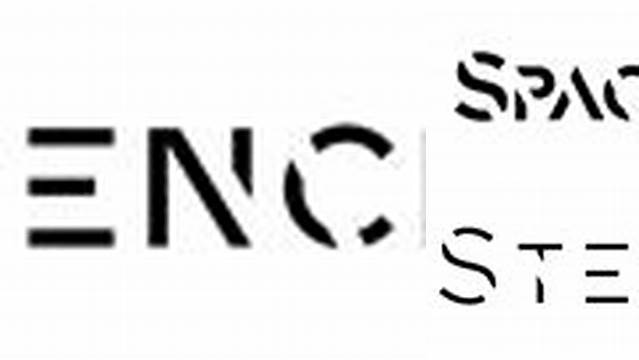
Hey there, design enthusiasts and creative minds! Are you on the hunt for a font that truly stands out, offers a distinctive edge, and won't cost you a dime? Well, buckle up, because we're about to dive deep into the fantastic world of Spaco Stencil SC Normal. This isn't just any free font, guys; it's a versatile, eye-catching typeface that can totally transform your projects, giving them that industrial, bold, or even military-inspired look without the hefty price tag. We're talking about a font that's perfect for everything from impactful headlines to striking logos, and it's all available for you to grab right now. So, let's explore why Spaco Stencil SC Normal should be your next go-to, how to get your hands on it, and all the amazing ways you can put it to work.
Unveiling Spaco Stencil SC Normal: Your Next Go-To Free Font
Spaco Stencil SC Normal is truly a game-changer for many designers, offering a unique blend of readability and rugged charm that’s hard to come by, especially in the realm of free fonts. This particular typeface, as its name suggests, falls into the stencil category, which means each character is broken into segments, giving it that classic, cut-out appearance often associated with crates, military markings, or vintage signage. But what sets Spaco Stencil SC Normal apart is its remarkable balance; it manages to be bold and assertive without sacrificing clarity, making it incredibly effective for titles, headers, and any design element where you want to make a strong visual statement. It’s perfect for projects that demand a sense of strength, authenticity, or a touch of urban grit. Think about album covers, event posters, or even branding for a rugged outdoor company – this font just gets it. The 'SC' in its name often refers to 'Small Caps' or 'Semi Condensed,' which further defines its unique character, providing a consistent height that works wonders for cohesive design.
Another fantastic aspect of Spaco Stencil SC Normal is its incredible versatility, guys. Don't let the "stencil" label fool you into thinking it's a one-trick pony. While it absolutely excels in industrial or military-themed designs, its clean lines and structured form allow it to adapt to a surprising array of styles. You could pair it with a sleek sans-serif for a modern, minimalist look that still has an edge, or combine it with a script font for a fascinating contrast that’s both elegant and bold. The 'normal' weight ensures it’s not too heavy or too light, hitting that sweet spot for most applications. Designers often gravitate towards fonts that offer this kind of adaptability, because it means one great resource can be stretched across numerous different client briefs and personal projects. It’s like having a secret weapon in your design arsenal that you can pull out for almost any challenge, ensuring your work always looks professional and thoughtfully crafted. This ease of integration is a huge plus, making it a valuable asset for both seasoned pros and those just starting their design journey.
Ultimately, choosing Spaco Stencil SC Normal for your next creative endeavor is a smart move if you're looking to infuse your work with character and impact without dipping into your wallet. The fact that it's free is just the icing on the cake, allowing you to allocate your budget to other essential design tools or even just enjoy the savings. This font doesn't compromise on quality despite its cost-free nature; it delivers high-quality aesthetics and robust functionality, making it a favorite among those who prioritize both style and practicality. Whether you're designing for print or digital, for personal use or commercial projects (always check the specific license, of course!), Spaco Stencil SC Normal provides a solid foundation for designs that need to speak volumes. So, if you're ready to explore a font that combines strength, style, and surprising flexibility, keep reading, because we're going to unlock even more of its potential!
Understanding the Appeal of Spaco Stencil SC Normal for Designers
Spaco Stencil SC Normal holds a unique appeal for designers, drawing them in with its distinctive aesthetic and powerful presence. The appeal largely stems from its stencil construction, which inherently communicates a sense of rawness, authenticity, and often, a touch of rebellion. In a world saturated with clean, minimalist typefaces, a stencil font like Spaco Stencil SC Normal truly stands out, offering a visual texture and a narrative quality that immediately grabs attention. Designers often seek typefaces that can convey a specific mood or message without needing a lot of extra embellishment, and this font does just that. It's fantastic for conveying urgency, strength, or even a nostalgic, vintage feel depending on how it's paired and styled. Think about how a stenciled word instantly brings to mind crates, military equipment, or even street art – that's the kind of inherent storytelling this font possesses, making it a powerful tool in any designer's kit.
Another significant part of the appeal of Spaco Stencil SC Normal is its ability to inject immediate character into a design. Sometimes, a project needs more than just legibility; it needs personality, an immediate visual hook. This is where Spaco Stencil SC Normal shines, guys. Its cut-out letterforms create a bold, almost handcrafted look, even though it's a digital typeface. This can be incredibly effective for branding, particularly for businesses that want to project an image of durability, craftsmanship, or a no-nonsense attitude. Moreover, the 'SC Normal' aspect ensures that while it's striking, it remains incredibly usable. The consistent height of the small caps version means you get a uniform text block, which is excellent for creating clean, impactful headlines or short bursts of text. It prevents the visual clutter that can sometimes arise from mixing uppercase and lowercase letters, making your message clearer and more forceful. This makes it a great choice for posters, book covers, or any situation where visual impact is paramount.
Ultimately, the enduring appeal of Spaco Stencil SC Normal lies in its perfect marriage of form and function, delivering strong visual impact without sacrificing usability. For designers, finding a font that offers such a potent combination, especially one that is freely available, is like striking gold. It allows for creative experimentation and the execution of bold design concepts that might otherwise require custom lettering or more expensive premium fonts. Spaco Stencil SC Normal empowers designers to explore themes of strength, industry, and authenticity, opening up new avenues for creative expression. So, whether you're working on a gritty urban campaign, a vintage-inspired piece, or simply need a typeface that demands attention, understanding and leveraging the unique appeal of this font can significantly elevate your design work and help you stand out from the crowd. It’s a resource that truly keeps on giving, and its distinctive nature ensures your projects will always leave a lasting impression.
Why Choose a Free Stencil Font Like Spaco Stencil SC Normal?
Spaco Stencil SC Normal, and free stencil fonts in general, offer a compelling proposition for designers operating within budget constraints or simply looking for high-quality, distinctive typefaces without the financial outlay. The primary reason to choose a free stencil font like Spaco Stencil SC Normal is, of course, the cost – it’s absolutely free! This means you can experiment with a unique typographic style, incorporate it into multiple projects, and even use it for commercial work (after checking the license, of course!) without having to worry about licensing fees or subscription costs. For freelancers, small businesses, or students, this is a massive advantage, allowing them to produce professional-grade designs using impactful fonts that would otherwise be out of reach. It democratizes good design, making powerful visual tools accessible to everyone.
Beyond the cost-saving aspect, Spaco Stencil SC Normal brings a distinct aesthetic advantage that many premium fonts struggle to replicate, guys. Stencil fonts inherently carry a robust, utilitarian, and often rebellious vibe. This particular font excels at conveying a message of strength, industrial heritage, or even a DIY ethos, which can be incredibly effective for certain brands and projects. If you're designing for a streetwear brand, an independent music festival, a craft brewery, or anything that needs to feel raw, authentic, and a little edgy, then Spaco Stencil SC Normal is a fantastic choice. It provides instant character and gravitas to headlines and display text, making your designs memorable and impactful. Unlike many generic sans-serifs, a well-chosen stencil font like this one isn't just about reading the words; it's about feeling the attitude behind them. This makes it a powerful asset for conveying brand personality and making a strong visual statement that resonates with your target audience.
Ultimately, choosing Spaco Stencil SC Normal isn't just about saving money; it's about making a deliberate design choice that enhances your project's message and aesthetic quality. It offers a unique visual vocabulary that can elevate ordinary text into an extraordinary design element. The combination of its distinct stencil style, its clear legibility in its 'Normal' weight, and the fact that it's a small-caps (SC) variant, ensures a consistent and powerful visual presence. For anyone looking to add a touch of industrial chic, military precision, or street-savvy grit to their designs, Spaco Stencil SC Normal provides an excellent, readily available solution. It's proof that 'free' doesn't mean 'low quality' when it comes to fonts; sometimes, the best tools are the ones that are freely shared and widely accessible, empowering creatives worldwide to push their boundaries and produce truly outstanding work. So go ahead, give it a try and see the magic unfold in your designs!